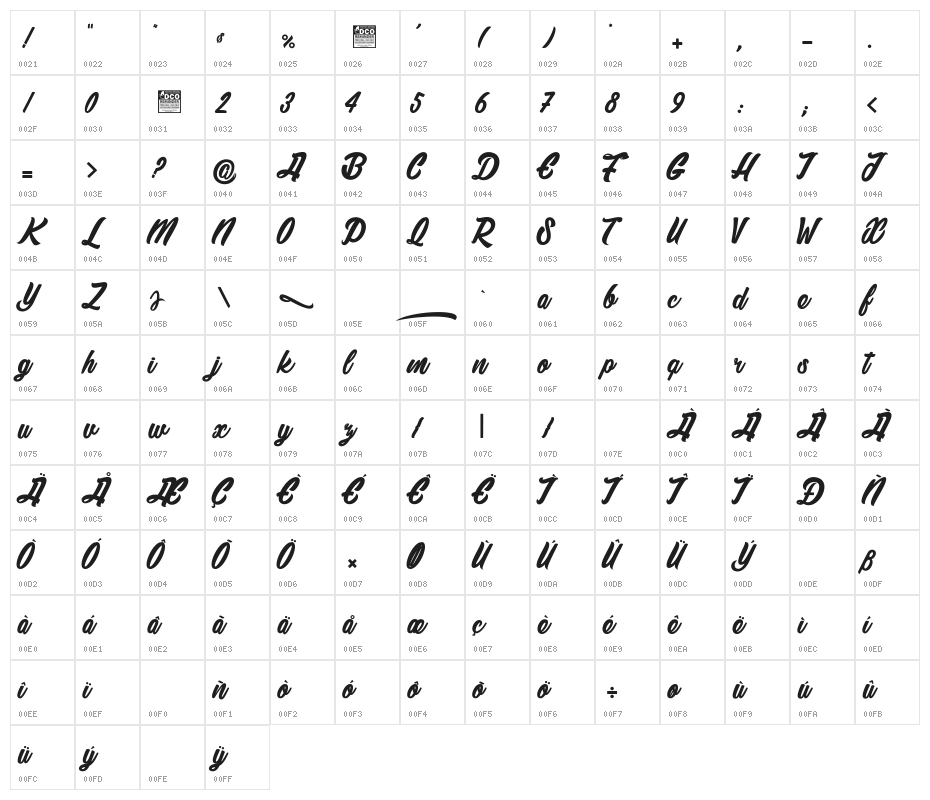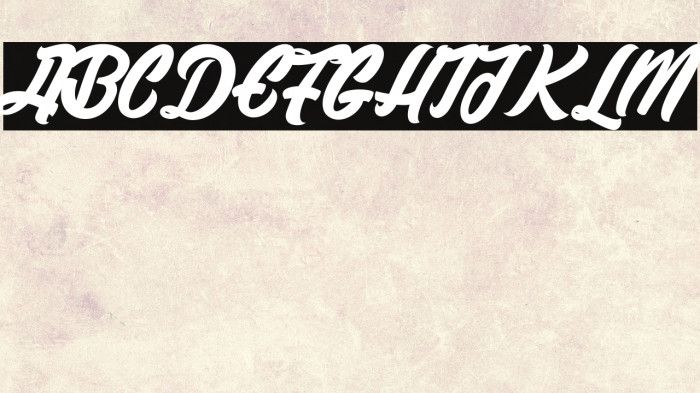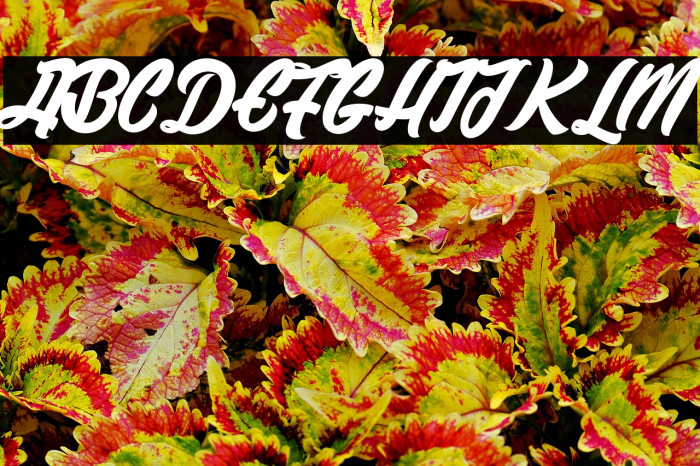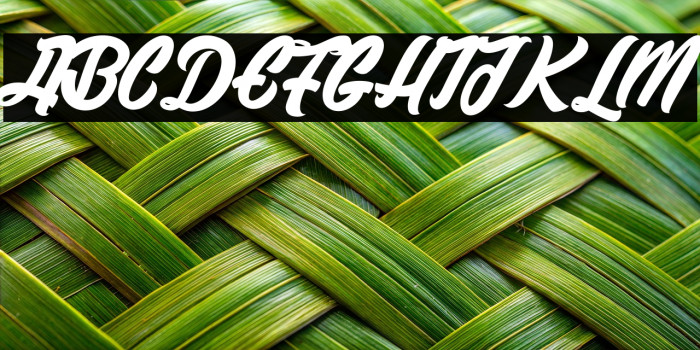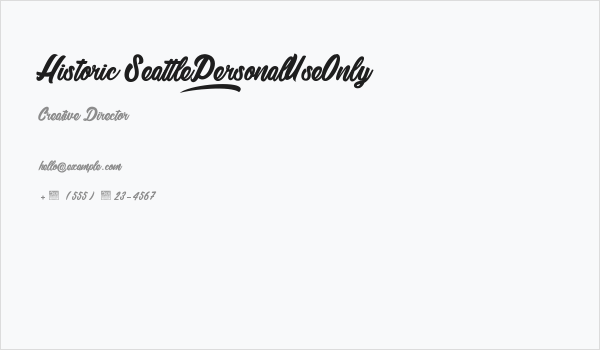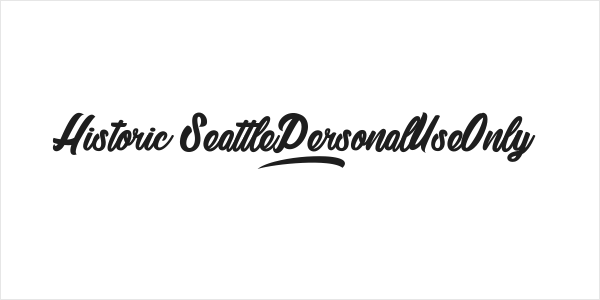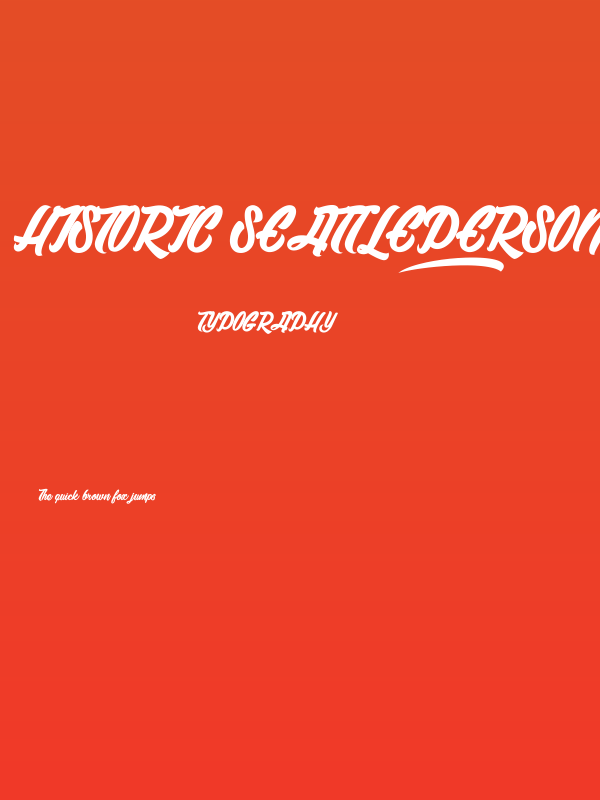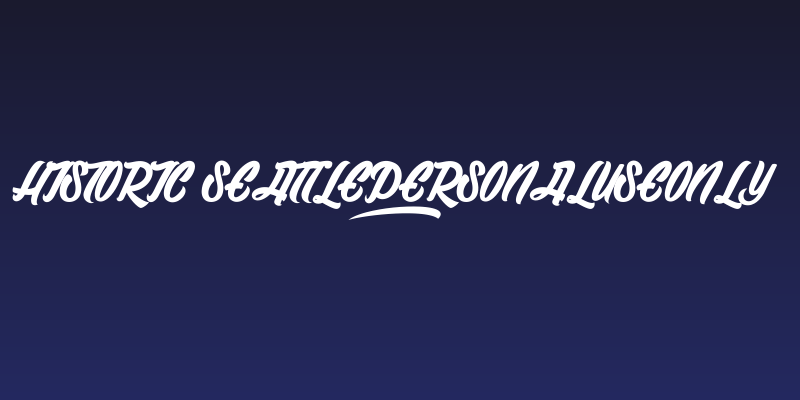
Historic Seattle_PersonalUseOnly Font
Historic Seattle_PersonalUseOnly Description
This font features a bold and flowing script style, characterized by its smooth, cursive letterforms that convey a sense of elegance and fluidity. The uppercase letters are particularly striking, with sweeping curves and a dynamic slant that suggest movement and grace. The lowercase letters maintain this fluidity, offering a harmonious balance between readability and artistic flair. The numerals and special characters are consistent with the overall style, ensuring a cohesive look across all text. This font is ideal for projects that require a touch of sophistication and personality.
| Overall Style | Elegant, Decorative |
| Use Case | Logos, Invitations, Branding |
| Proposed Projects | Ideal for wedding invitations, branding, logo design, and elegant packaging. |